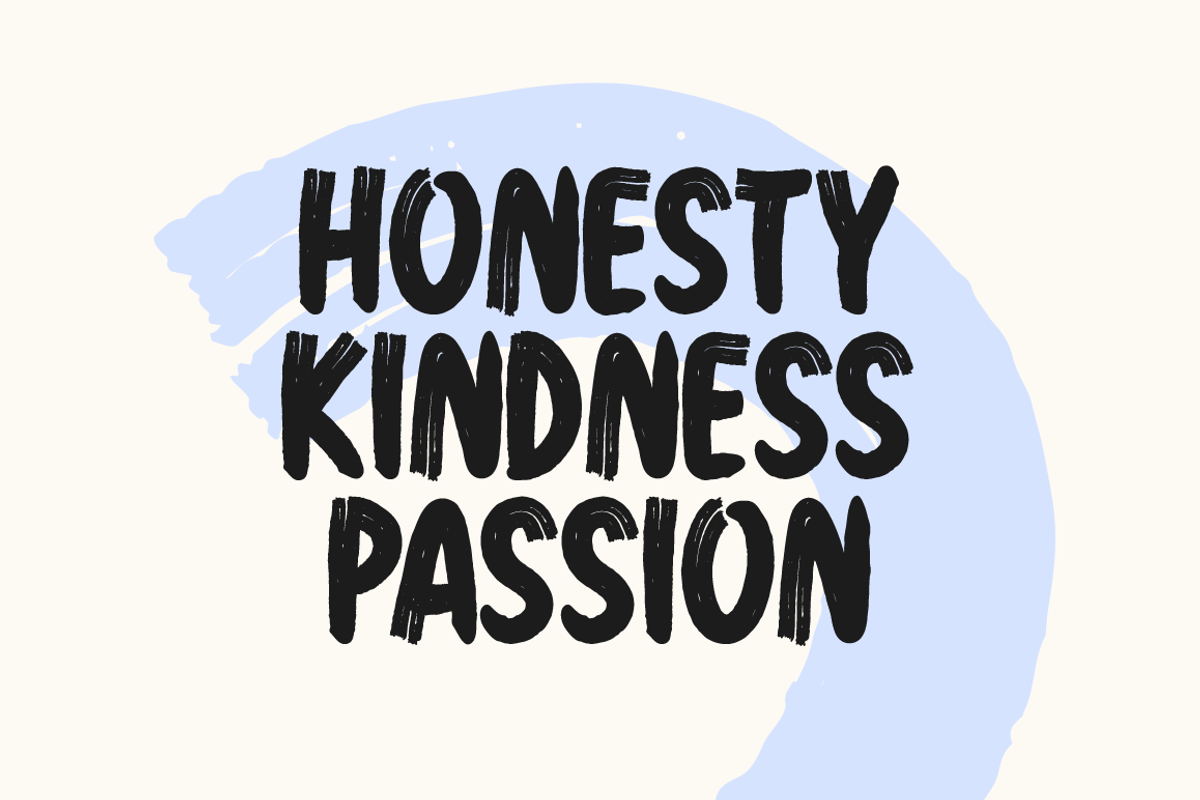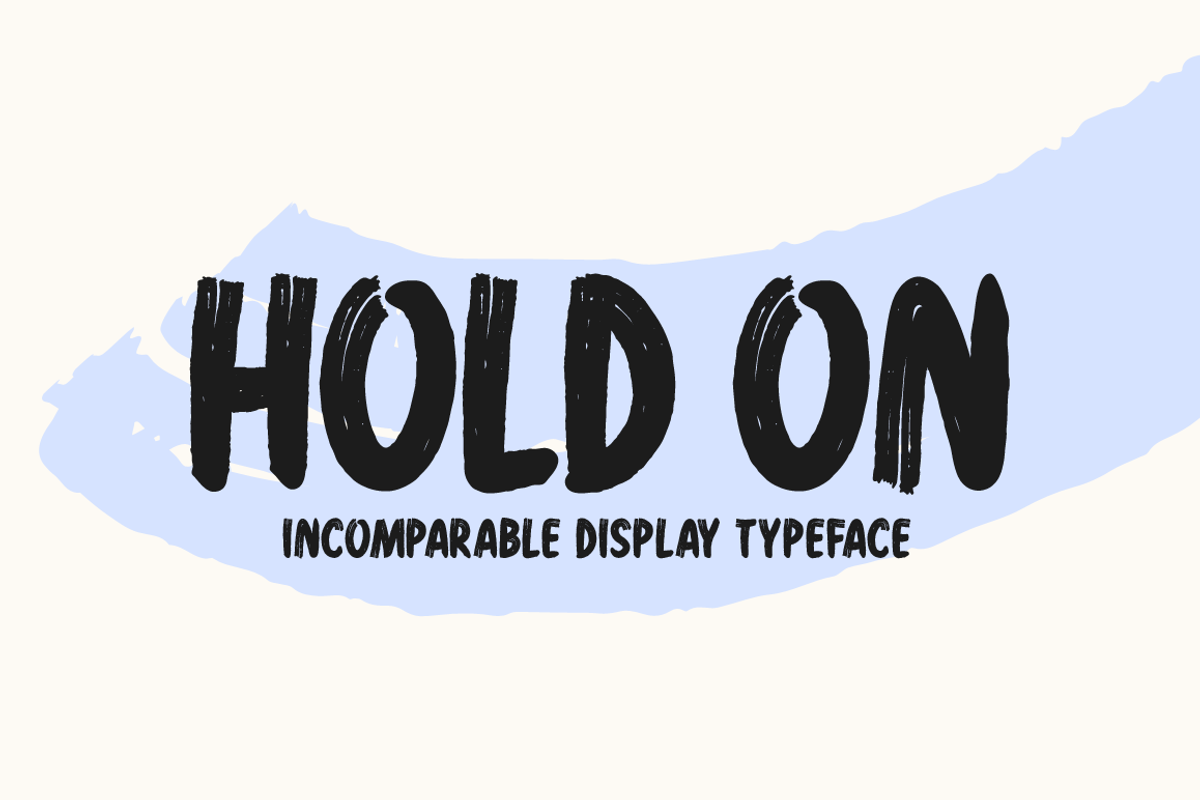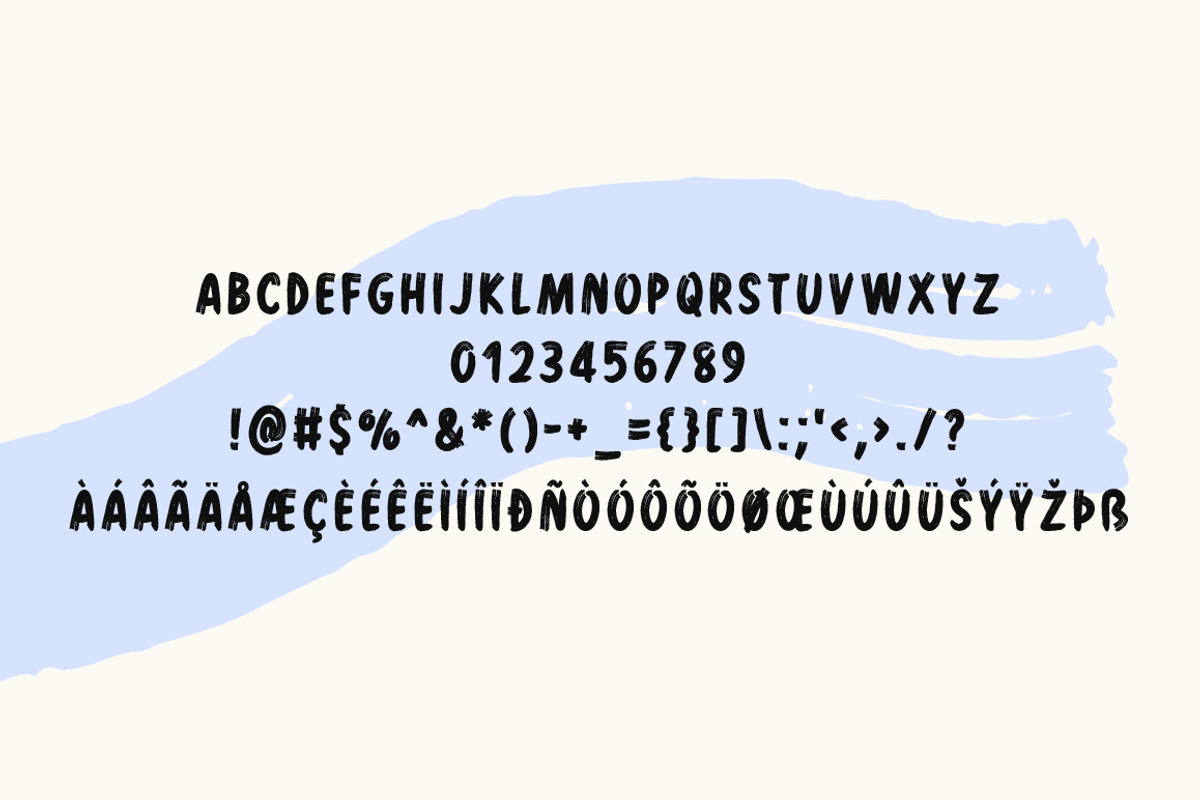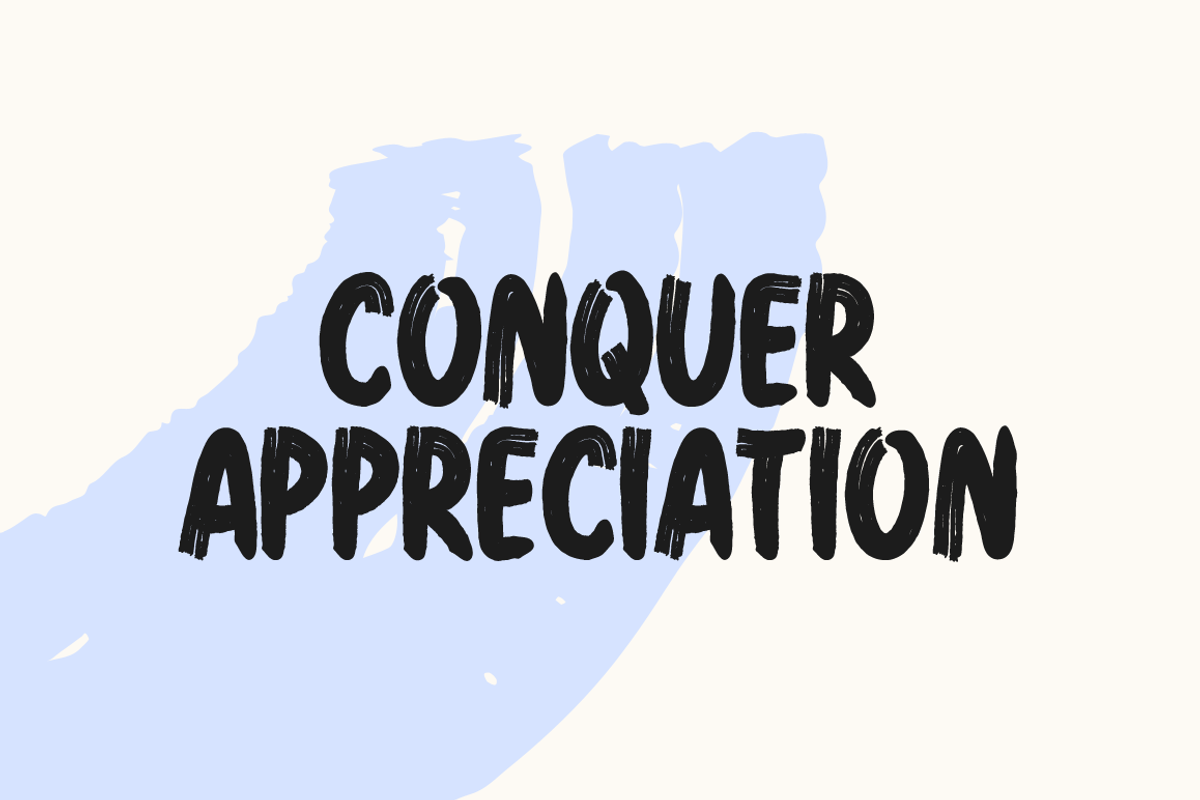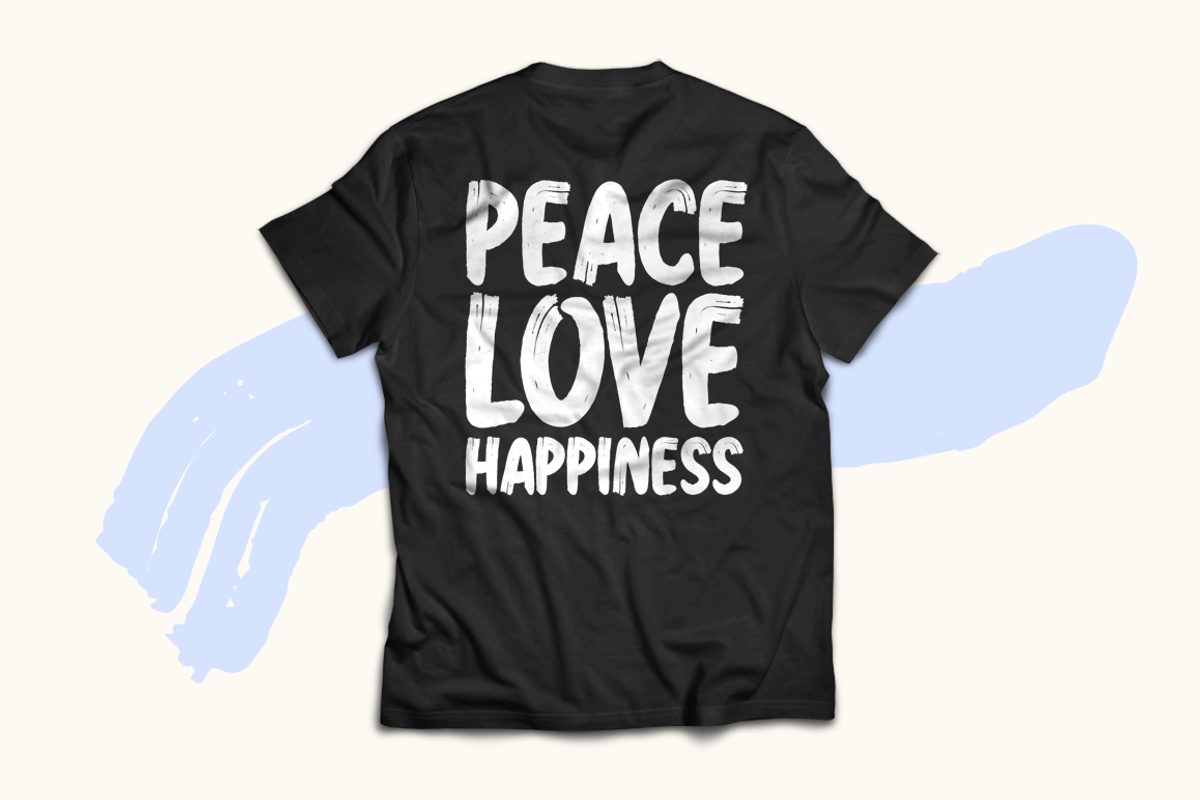
Hold On Typeface
Introducing Hold On!
Hold On is a chunky and bold display font featuring subtle brush-strokes for a friendly feel. This gorgeous typeface is perfectly suited for stationery, logos, t-shirt, paper, print design, website header, photo frame, flyer, music cover, poster, image slider, and much more!
Includes a range of multilingual support